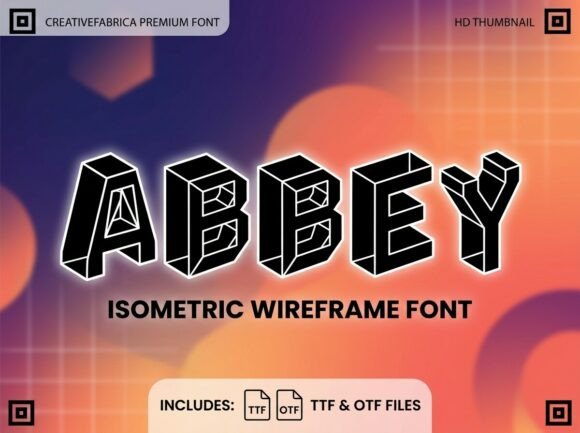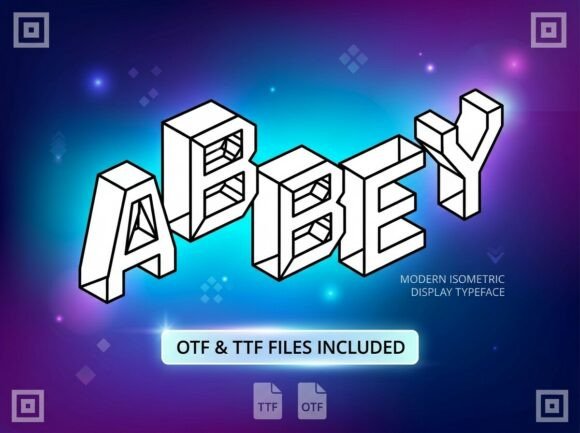
Abbey Font: Elevate Your Designs with a Stunning Decorative Display Font
Are you tired of using the same old fonts in your designs? Look no further than the Abbey Font, a stunning decorative display font that’s sure to turn heads. With its unique artistic elements and strong visual personality, this font is perfect for creators who want to break away from the ordinary and make a statement.
What Makes Abbey Font So Special?
Abbey Font is a versatile font that’s designed to be the center of attention. Its unique artistic elements and strong visual personality make it perfect for bold headlines, artistic logos, and creative packaging. Whether you’re a designer, craftsperson, or DIY enthusiast, this font is sure to elevate your designs and give them a professional and polished finish.
Why Choose Abbey Font?
There are many reasons why Abbey Font is the perfect choice for your next design project. Here are just a few:
- Unique and Eye-Catching: Abbey Font is a truly unique and eye-catching font that’s sure to grab attention. Its artistic elements and strong visual personality make it perfect for designs that need to stand out.
- Versatile: This font is versatile enough for use in a variety of design projects, from bold headlines and artistic logos to creative packaging and more.
- Professional and Polished: Despite its decorative nature, Abbey Font maintains a professional and polished finish that’s perfect for designs that need to look their best.
How to Use Abbey Font
Abbey Font is easy to use and can be incorporated into a variety of design projects. Here are a few ideas to get you started:
- Headlines: Use Abbey Font to create bold and eye-catching headlines that grab attention.
- Logos: Create a unique and memorable logo for your business or brand using Abbey Font.
- Packaging: Add a touch of elegance and sophistication to your packaging designs with Abbey Font.
- Signage: Use Abbey Font to create eye-catching signs and displays that showcase your message.
Here are a few tips and tricks to help you get the most out of Abbey Font:
- Experiment with Colors: Abbey Font looks great in a variety of colors, so don’t be afraid to experiment and find the perfect hue for your design.
- Play with Size: This font is designed to make a statement, so don’t be afraid to go big and make it the center of attention.
- Mix and Match: Try pairing Abbey Font with other fonts to create a unique and interesting design.